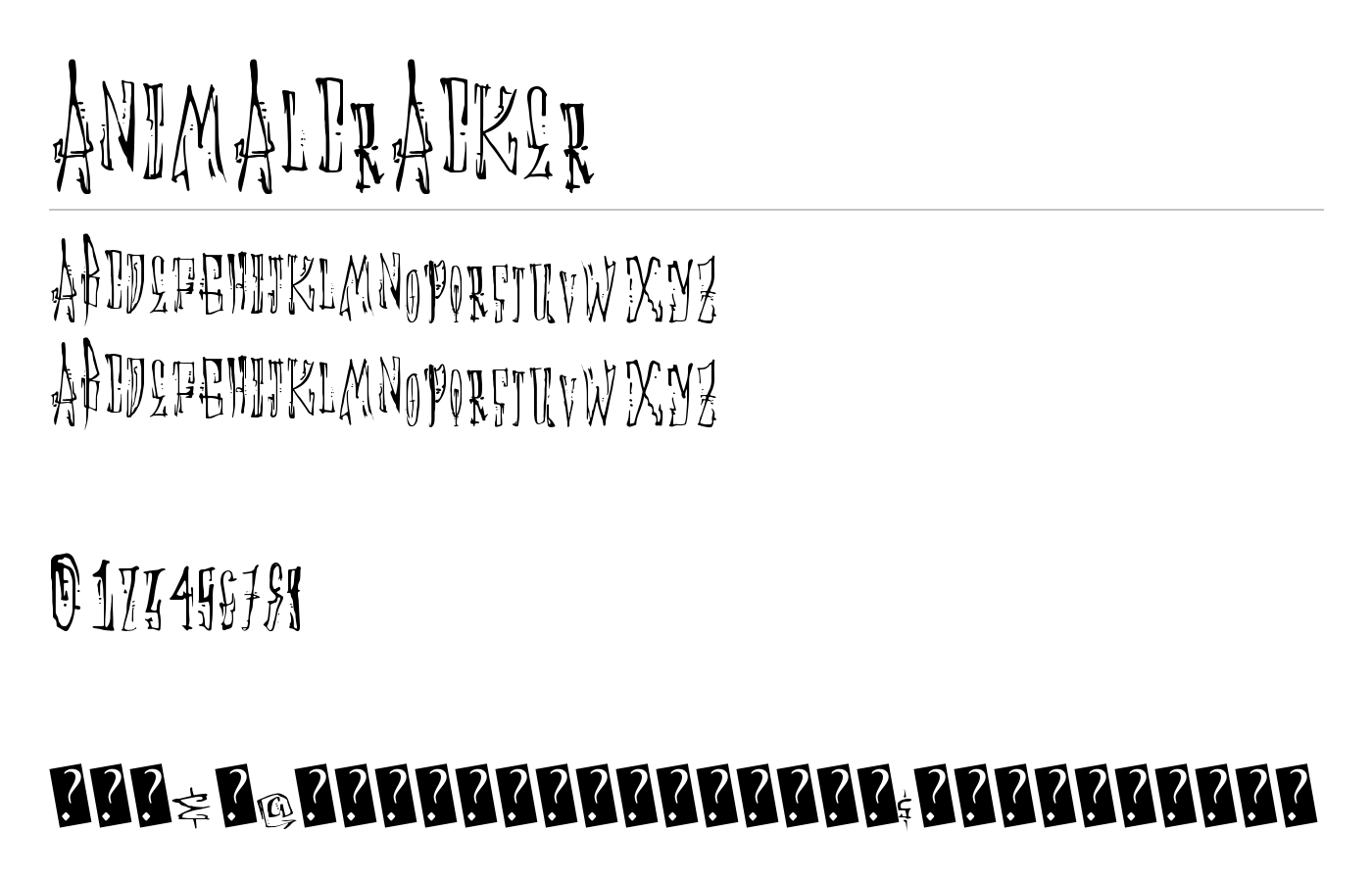
AnimalCracker is a quirky, decorative serif font with a tall, narrow structure and irregular, jagged edges that give it a playful and wild character. Its high contrast strokes and uneven shapes evoke a handcrafted, almost spooky vibe, making it perfect for creative projects, children’s themes, or Halloween designs where a fun yet slightly eerie look is desired. This font works best in bold headlines or display uses where its unique personality can stand out and capture attention.
AnimalCracker Font
About AnimalCracker Font